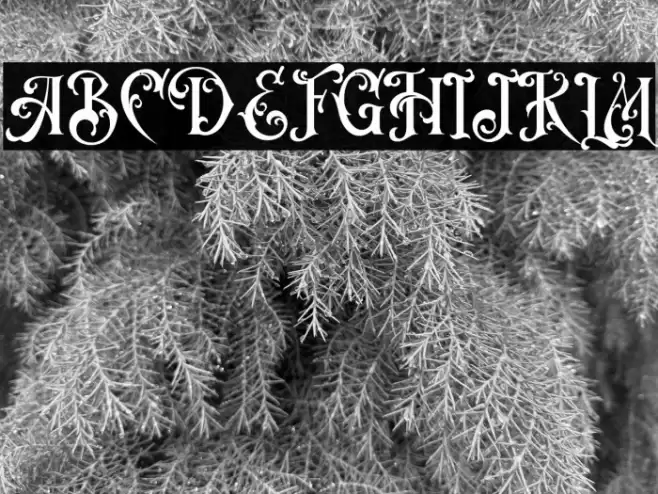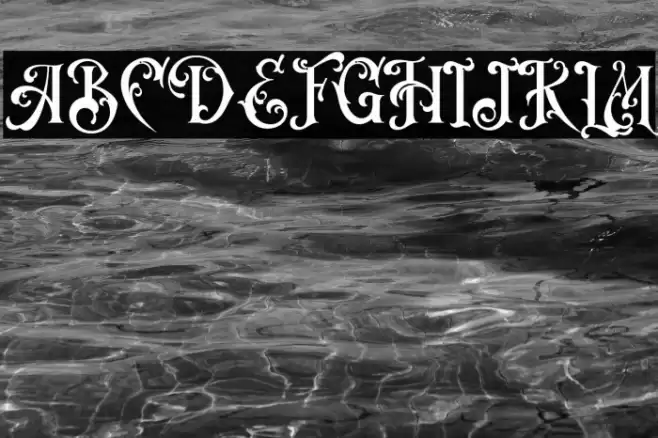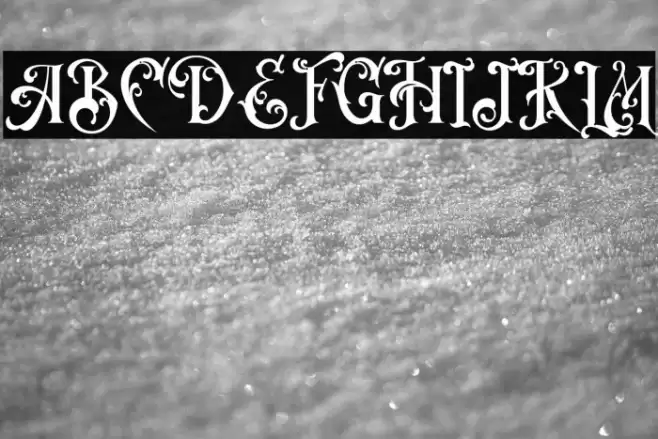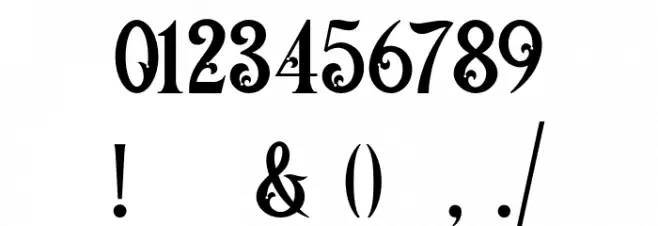
VictorianDecadeDemoVersion Font
VictorianDecadeDemoVersion Description
This font exudes a classic Victorian charm with its ornate and decorative elements. The uppercase letters feature intricate swirls and flourishes, reminiscent of 19th-century design aesthetics. The lowercase letters maintain a more straightforward yet elegant style, providing a nice contrast to the elaborate uppercase. Numbers and special characters are designed with similar attention to detail, making them suitable for vintage-themed projects. The overall appearance is bold and eye-catching, perfect for creating a sense of historical elegance.
A decorative Victorian-style font with ornate uppercase and elegant lowercase letters from Uncategorized fonts.
- Proposed Projects: Ideal for vintage posters, wedding invitations, historical event flyers, and branding that requires a classic touch.
- Overall Style: Vintage